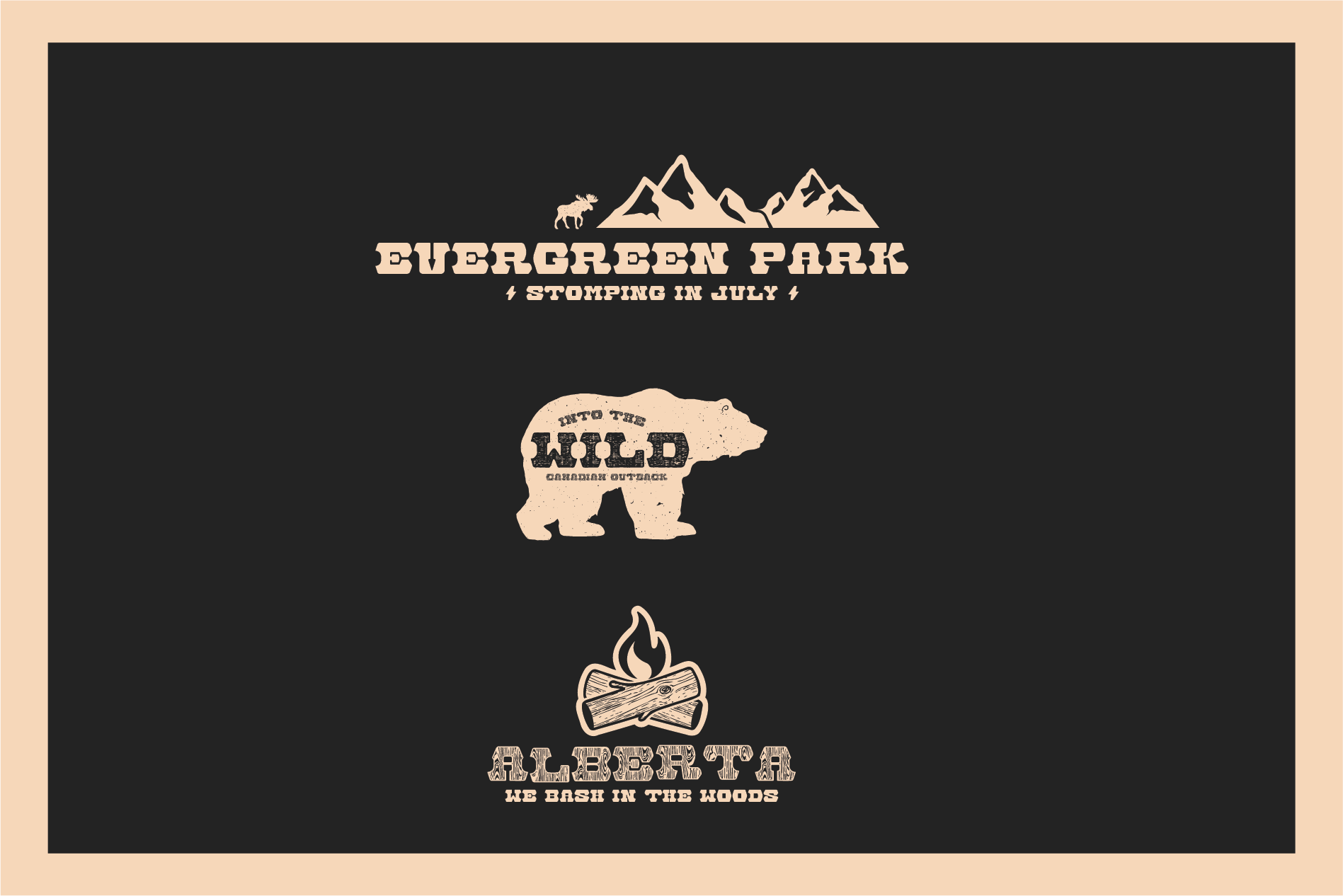
The Fort | A Rustic Display Font
This rustic display font comes in three styles, Solid, Distressed, and Wood. A great font for any rustic designs or when it calls for that extra punch with strong bold characters.